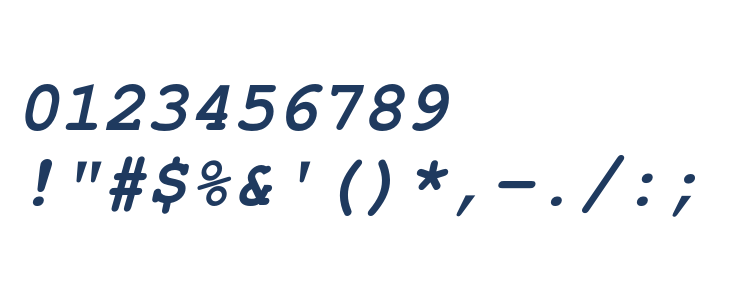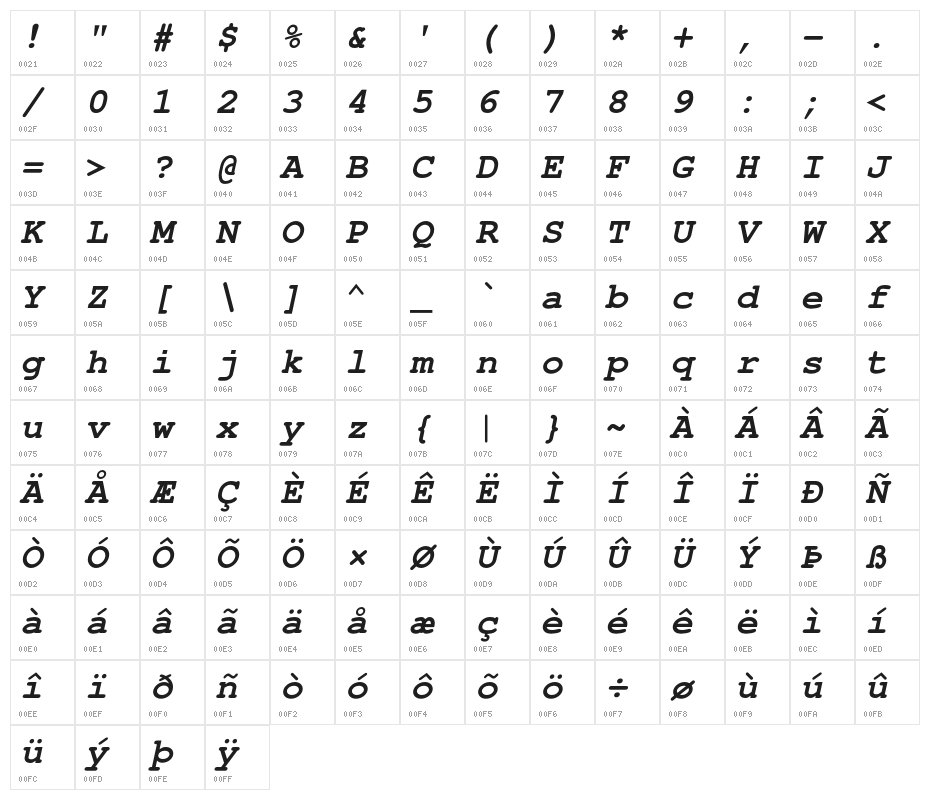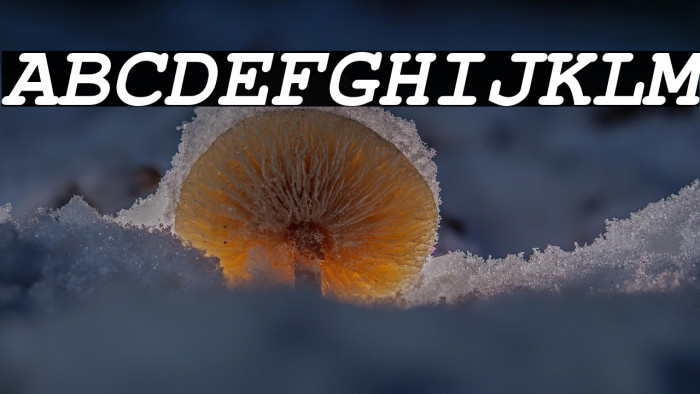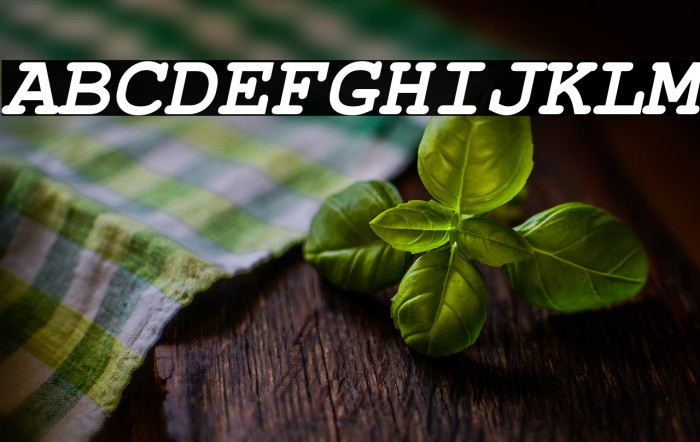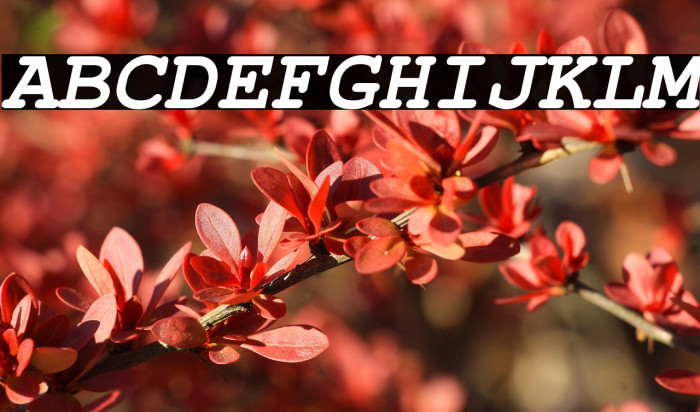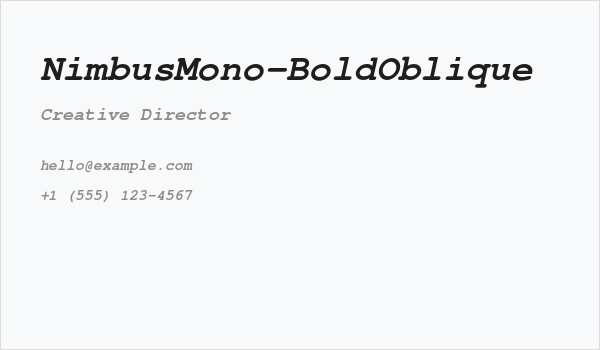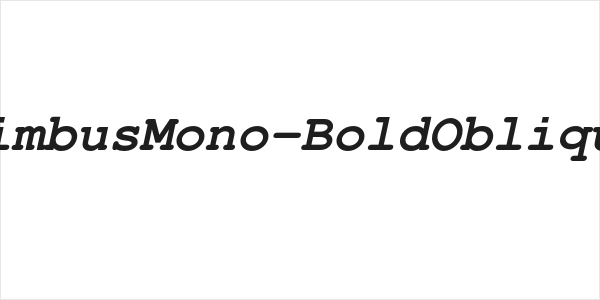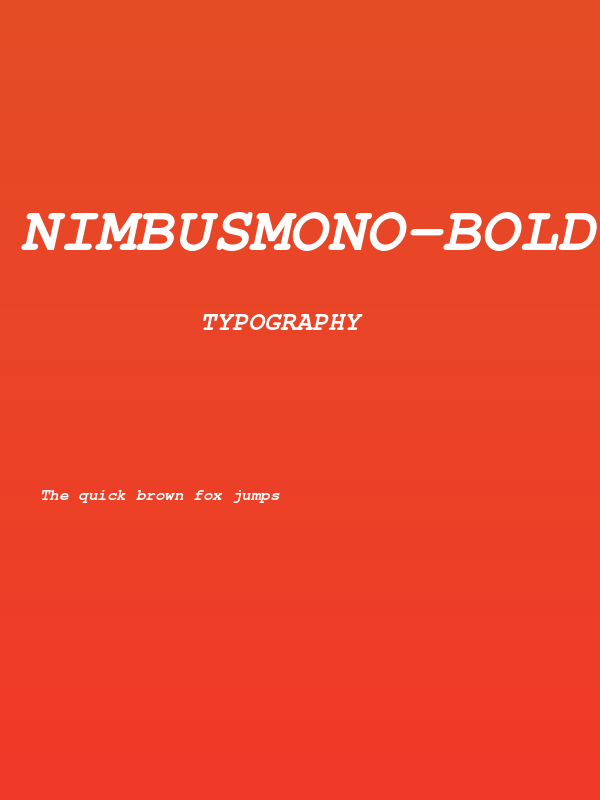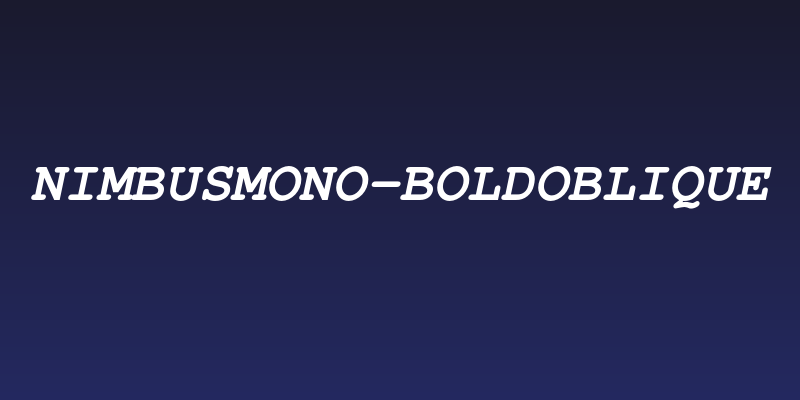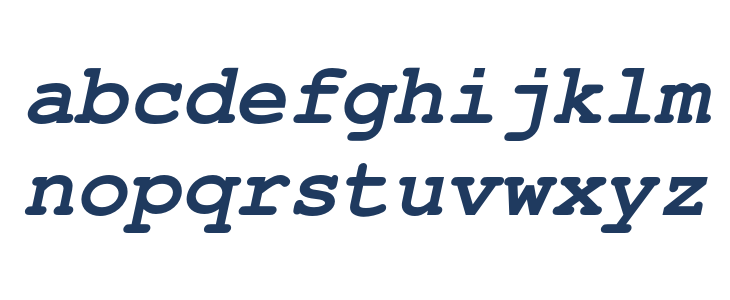
NimbusMono-BoldOblique Font
NimbusMono-BoldOblique Description
This font features a bold and oblique style, characterized by its strong, slanted letterforms that convey a sense of movement and dynamism. The strokes are consistent in weight, providing a uniform appearance across all characters. The font maintains a monospaced design, ensuring equal spacing between each character, which is ideal for coding and tabular data. Its clean and structured look makes it suitable for both digital and print media. The uppercase and lowercase letters are well-defined, with a slight curvature that adds a touch of elegance to the overall design. The numerals are clear and distinct, enhancing readability. Special characters are included, offering versatility for various applications.
| Use Case | Headlines, Body text, Logos, Coding |
| Proposed Projects | Ideal for coding, technical documents, and any project requiring a structured and dynamic typeface. |